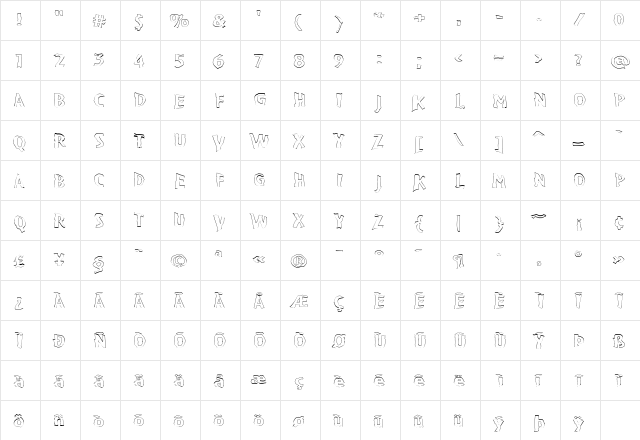
VTC BadPaint Outline Font Preview
VTC BadPaint Outline
VTC BadPaint Outline Font Details
| Style | Outline |
| Designer | WolfBainX |
Design Context for VTC BadPaint Typeface
VTC BadPaint is built around its visual character rather than neutral utility — its distinctive forms are designed to make an impression at display sizes.